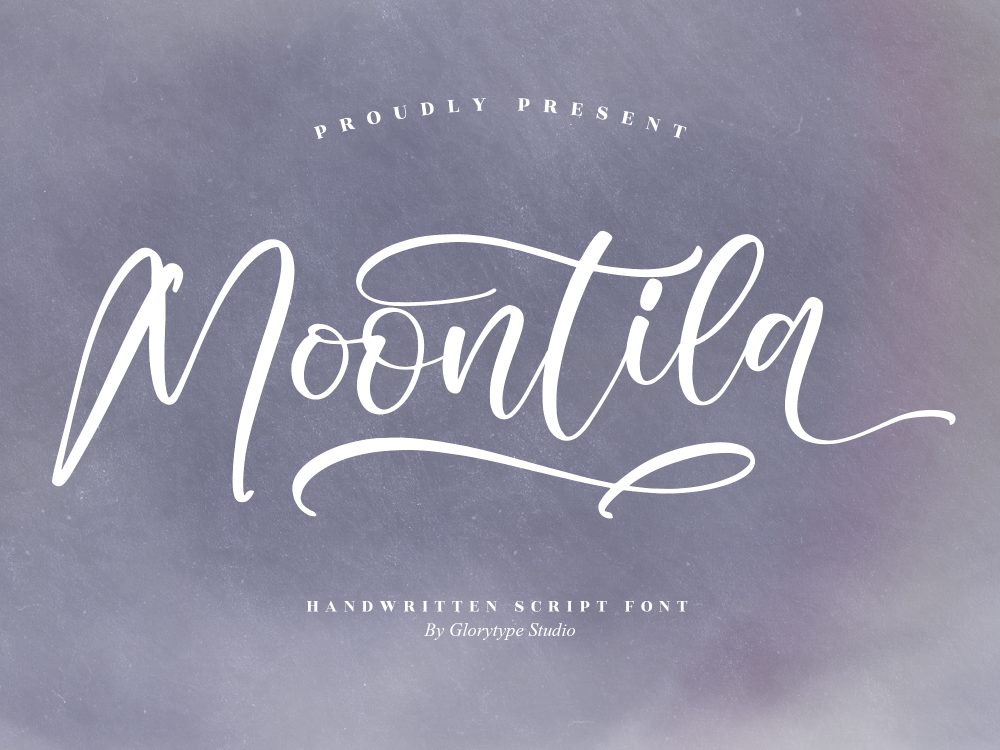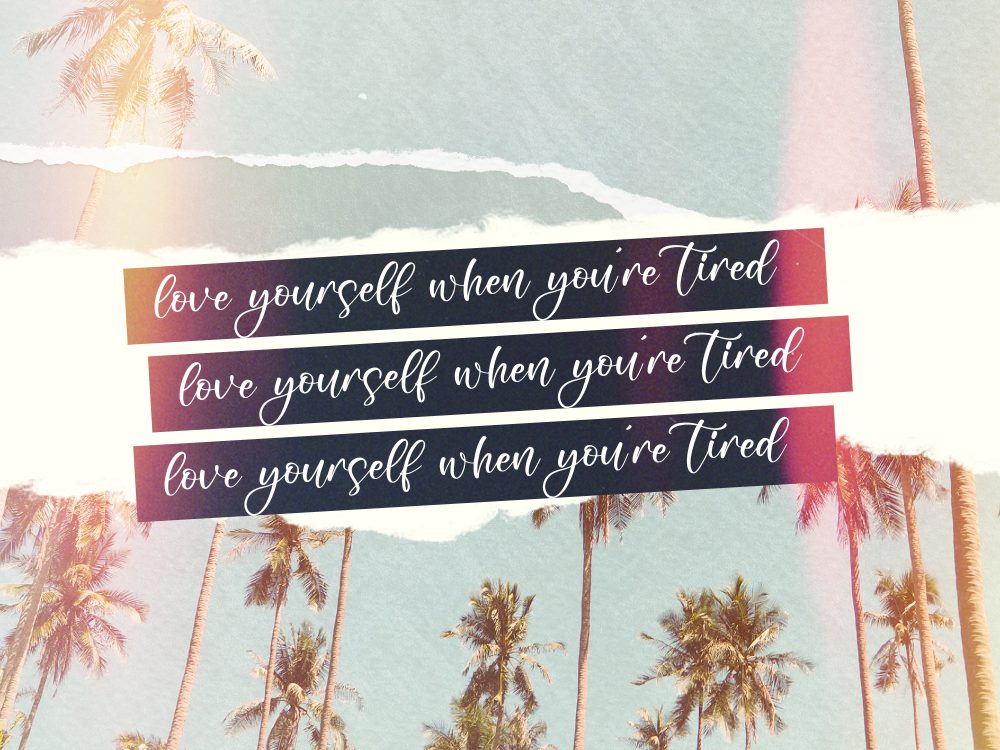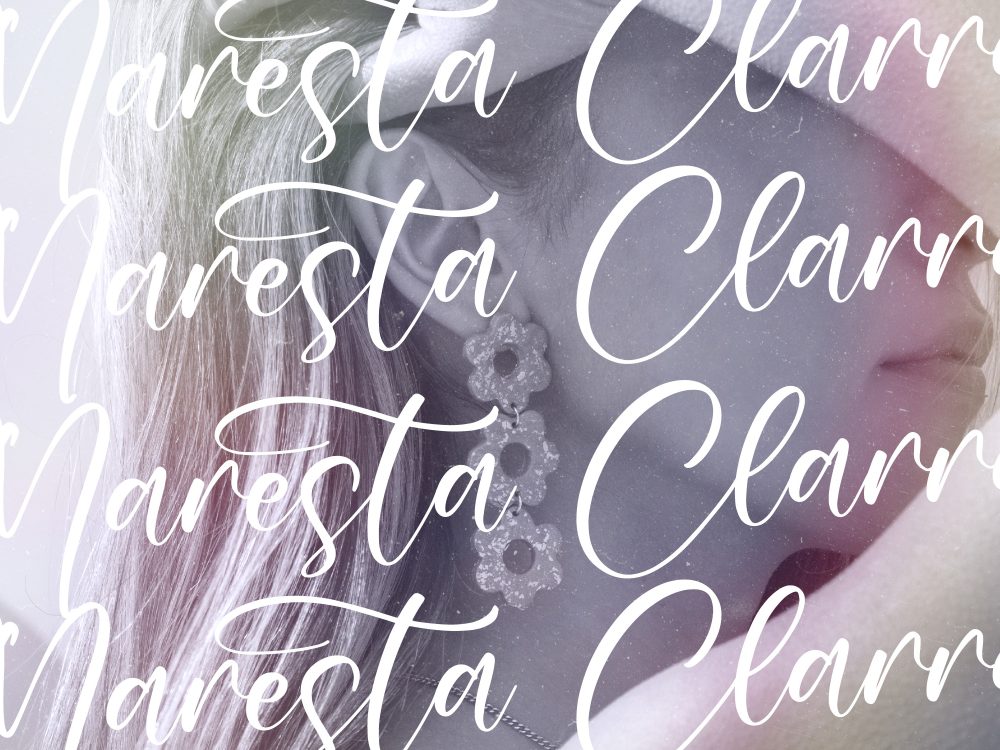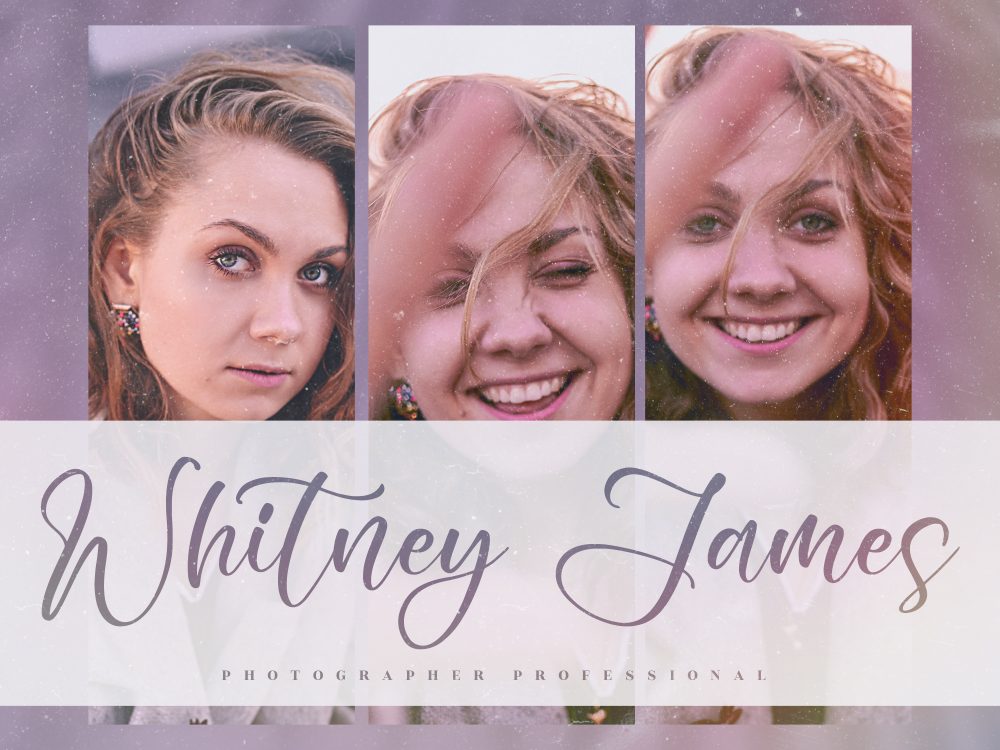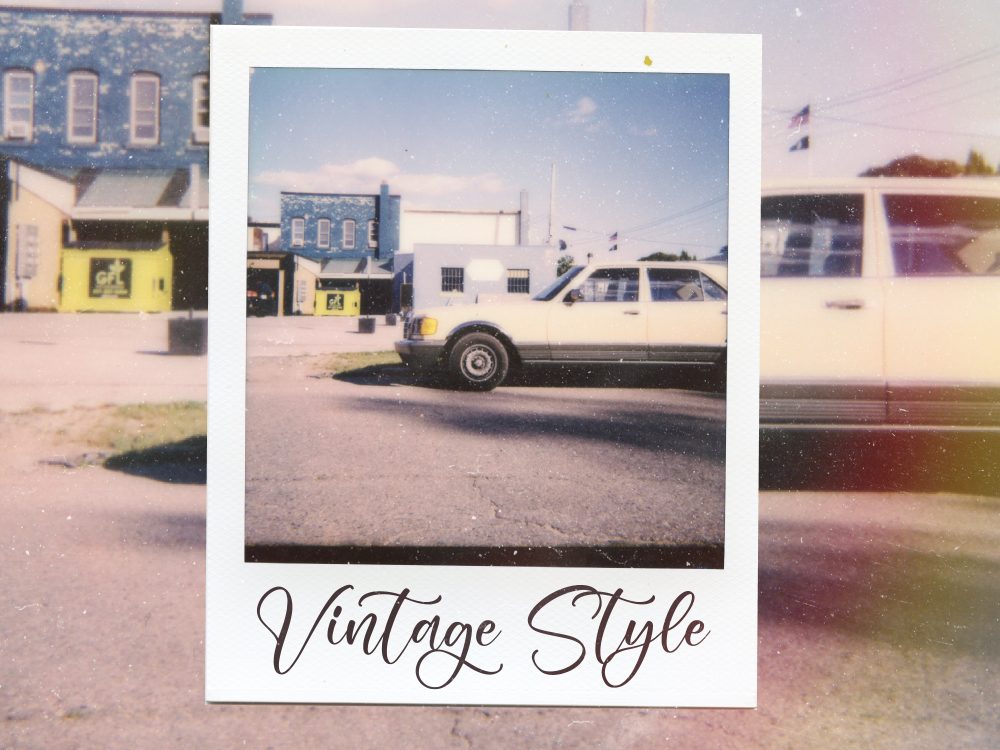
Moontila Free Font
Moontila Free Font is a breathtaking script font, designed to elevate a wide range of projects. Whether it’s logos, branding projects, homeware designs, product packaging, mugs, quotes, posters, or any other creative endeavor that requires a touch of beauty, Moontila is the perfect choice. Infuse your designs with the elegance of Moontila’s script taste and watch as it brings a captivating allure to your work. This font’s versatility knows no bounds, making it suitable for a variety of applications. If you like it don’t forget to check out the full version.